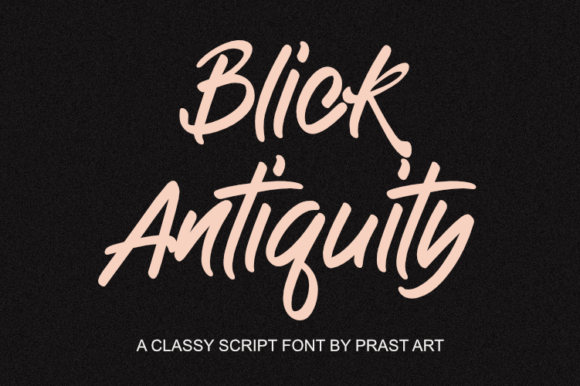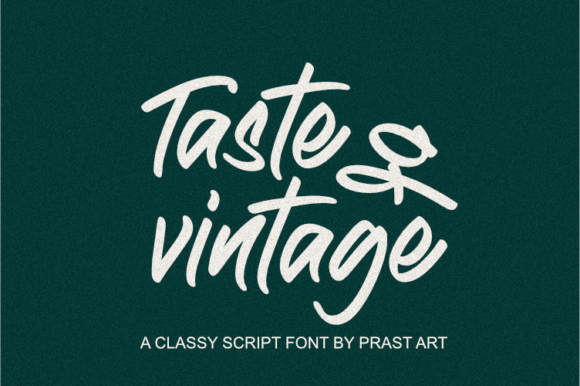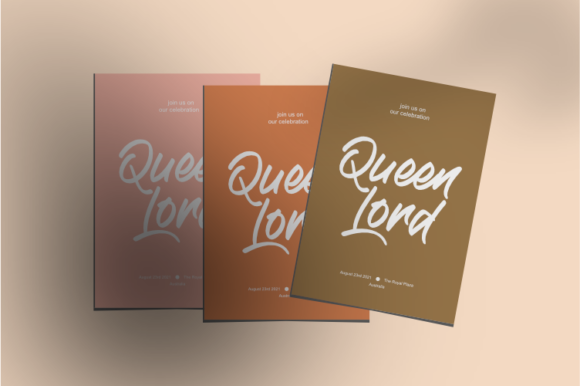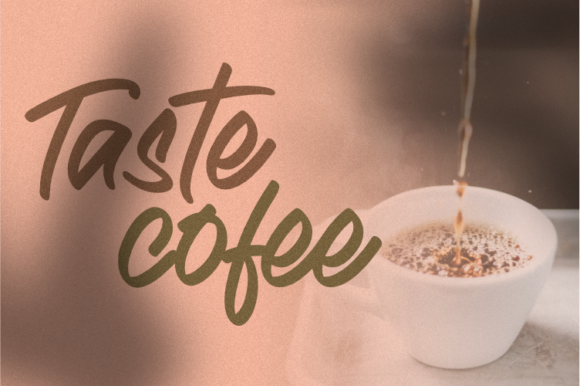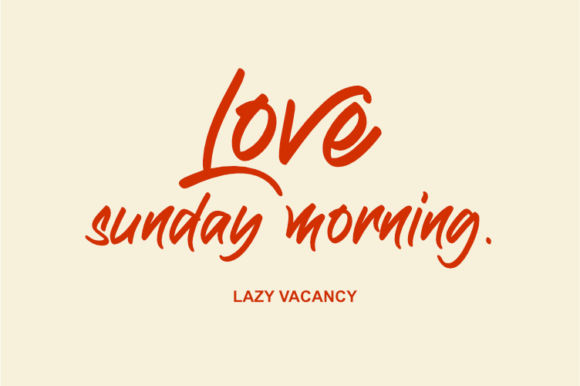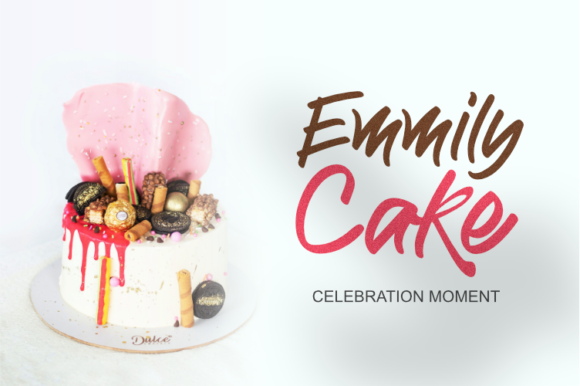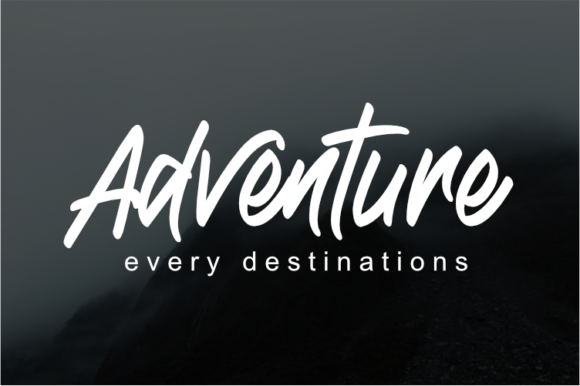
Discover the Charm of Antiquity Blick Font: Elevate Your Designs with Elegance
In the realm of typography, few fonts manage to capture the essence of both antiquity and modernity as effortlessly as the Antiquity Blick Font. This spectacular handwritten font is not just a typeface; it’s an experience. With its PUA (Private Use Area) encoding, accessing the vast array of glyphs and swashes is a breeze, making it a versatile tool for designers and crafters looking to infuse their projects with a touch of elegance and personality.
The Unique Features of Antiquity Blick Font
Antiquity Blick Font stands out for its distinctive characteristics that set it apart from other fonts in the market. Here are some of its key features:
• Varying Ligatures: One of the standout features of Antiquity Blick Font is its inclusion of varying ligatures. These special connections between letters add a fluid, dynamic quality to your text, making it more engaging and visually appealing.
• Smooth Lines: The font boasts smooth, flowing lines that contribute to its classy and contemporary feel. This smoothness ensures that your designs look refined and sophisticated, perfect for projects that demand a high level of elegance.
• Gorgeous Glyphs: With a rich set of glyphs, Antiquity Blick Font offers designers a wide range of options to customize their text. Each glyph is meticulously designed with a cute and charming aesthetic, adding a playful touch to your designs.
• Cute Design: The overall design of Antiquity Blick Font strikes a perfect balance between being cute and classy. This unique blend ensures that your projects stand out with a fresh and modern look, making them more engaging to your audience.
Why Choose Antiquity Blick Font?
For designers and crafters seeking a font that can elevate their projects to new heights, Antiquity Blick Font is an excellent choice. Here are a few reasons why:
• Contemporary yet Fresh: Despite its name suggesting antiquity, this font feels remarkably contemporary. Its design elements are carefully crafted to ensure that your projects look fresh and up-to-date, appealing to modern tastes while hinting at timeless elegance.
• Versatility: Whether you’re working on a branding project, creating invitations, designing packaging, or crafting digital content, Antiquity Blick Font can adapt to any style or theme. Its versatility makes it a valuable addition to any designer’s font library.
Antiquity Blick Font is more than just a typeface; it’s a design statement. With its elegant yet playful aesthetic, it offers designers and crafters a unique tool to bring their projects to life. Whether you’re aiming for sophistication, charm, or a bit of whimsy, this font is sure to exceed your expectations. By incorporating Antiquity Blick Font into your designs, you’re not just choosing a font; you’re embracing a style that blends the best of both worlds – timeless charm and contemporary flair.
So, fall in love with the Antiquity Blick Font and discover how it can transform your designs into captivating visual stories that resonate with your audience.